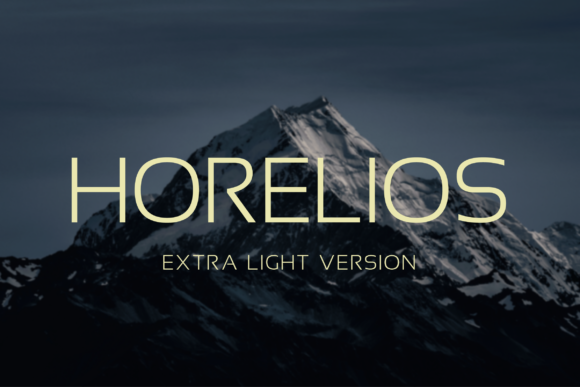
Gaze upon Horelios Extra Light, a typographic masterpiece that will leave you spellbound with its graceful curves and captivating simplicity. This sans serif font exudes elegance and sophistication, making it the perfect choice for creating designs that demand attention.
Enter a world of visual splendor where Horelios Extra Light takes center stage, captivating your audience with its refined beauty. Whether you're designing logos, branding, posters, or crafting digital experiences, this font will elevate your work to new heights of visual appeal.
With Horelios Extra Light as your creative companion, you'll discover a font that seamlessly blends form and function. Its clean lines and open counters ensure readability, while its subtle details add a touch of intrigue and depth.
Journey through a universe of creative possibilities with Horelios Extra Light as your guide. Immerse yourself in the world of typography and let your imagination soar as you craft designs that evoke emotion and leave a lasting impression.
Horelios Extra Light – A Timeless Treasure for the Discerning Designer. Embrace the beauty of simplicity and elevate your designs to new heights.